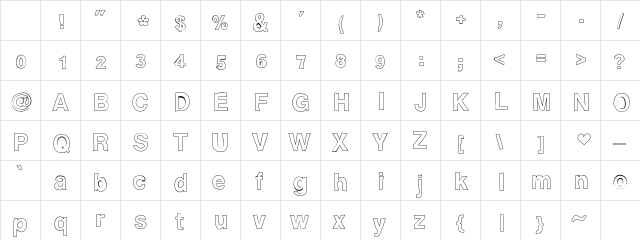
Complete AshleysFont2 Medium glyph index. Displaying only characters natively supported by AshleysFont2 Medium font.
AshleysFont2 is a composed and adaptable typeface that performs quietly and consistently across a wide range of design contexts.